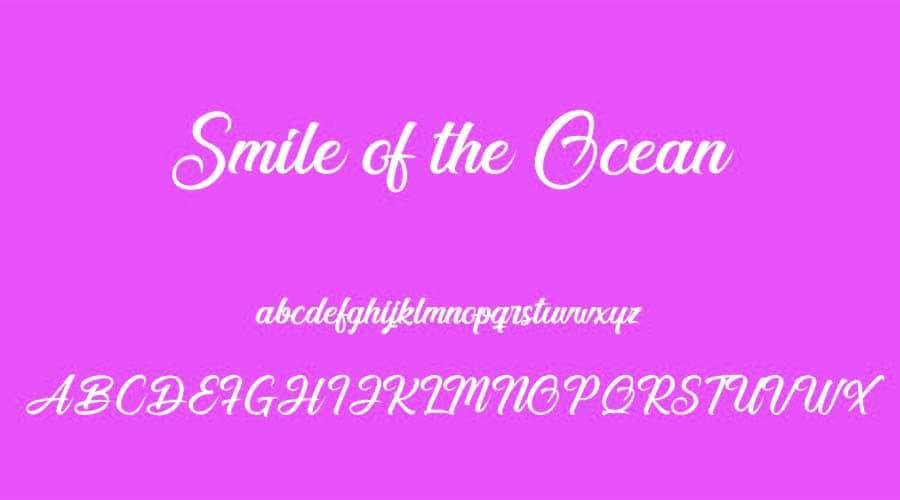
Smile of the Ocean Font
Smile of the Ocean Font is a lovely Calligraphy and Script font. Cat.B created and released the font on February 5, 2019.
Smile of the Ocean font is excellent for all of your whimsical designs. The Smile of the Ocean can be used to make different designs, covers, shop and store names, and stickers. The font is also ideal for branding projects, homeware designs, product packaging, or as a stylish text overlay to any background image.
StyleScript, Calligraphy
DesignerCat.B